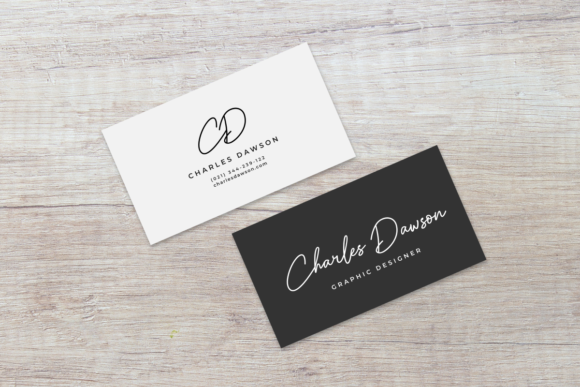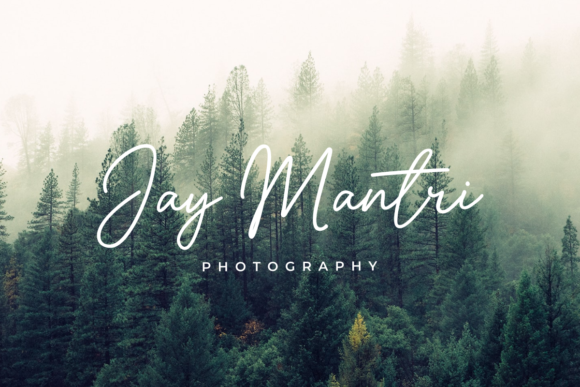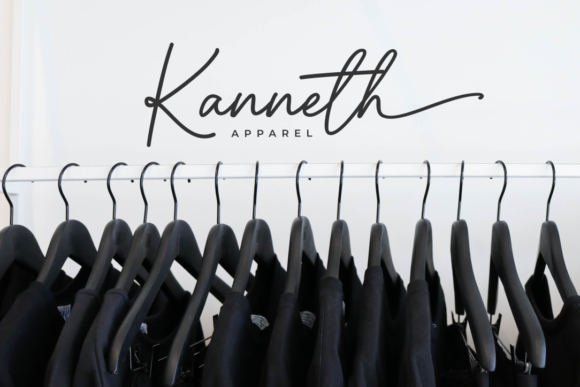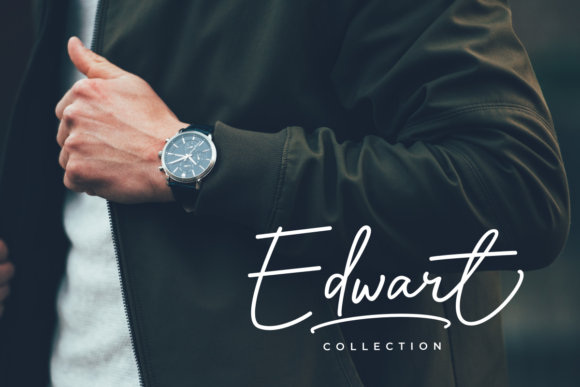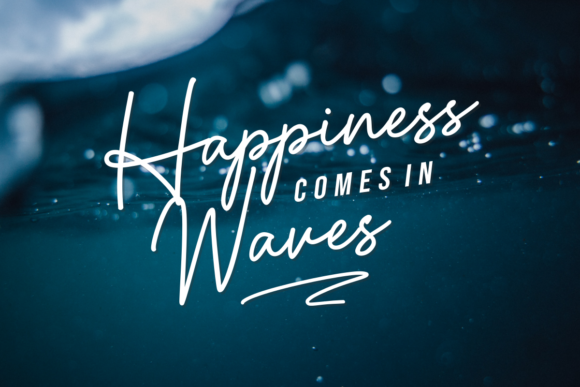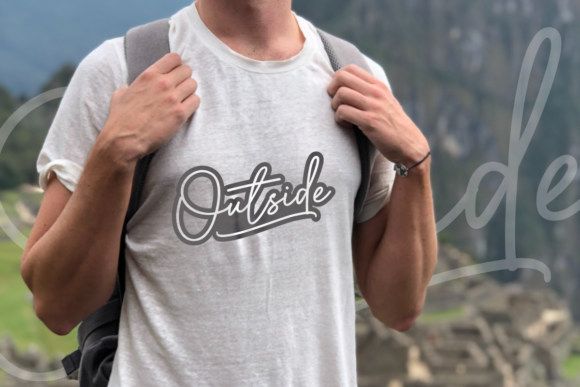
Introduction to Handswell Font Font
Fonts play a crucial role in design, and the Handswell Font font is a typeface that brings both character and versatility to any project. Whether you’re working on a branding project, a website, or a print design, the Handswell Font font offers a unique style that can elevate your work.
Handswell is a handwritten font with a natural and unique style that makes for an attractive and elegant design project.
It is perfect for branding, business cards, clothing, quotes, logos, and more .
Key Features of Handswell Font Font
Why Choose Handswell Font Font?
The Handswell Font font is more than just a typeface – it’s a design tool that helps you communicate your message with style and clarity. Its unique character set and versatile design make it suitable for a wide range of applications, from elegant invitations to bold headlines.
With its carefully crafted letterforms and balanced proportions, the Handswell Font font ensures readability and visual appeal across all mediums.
What makes Handswell Font font special?
The Handswell Font font stands out with its unique design, exceptional readability, and versatility across various design applications.